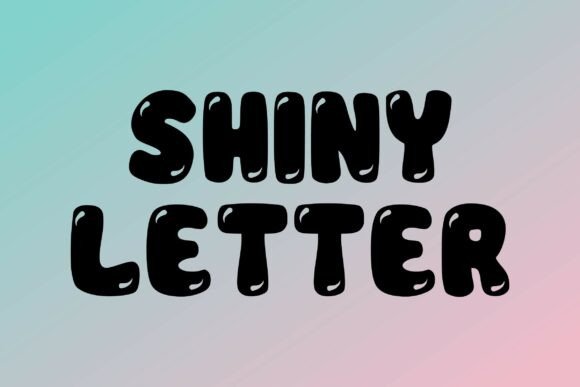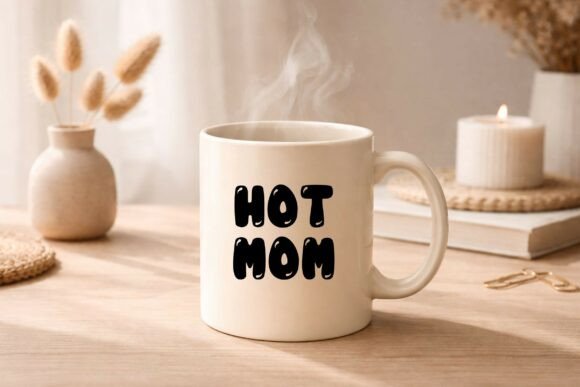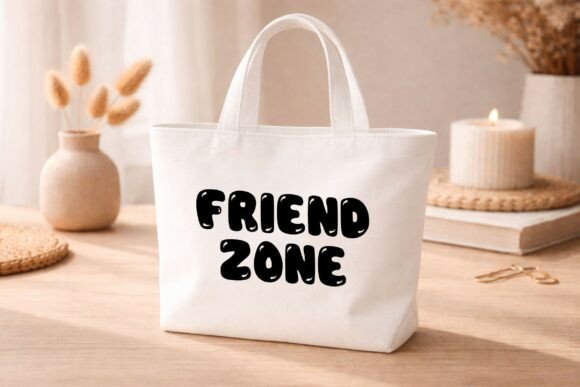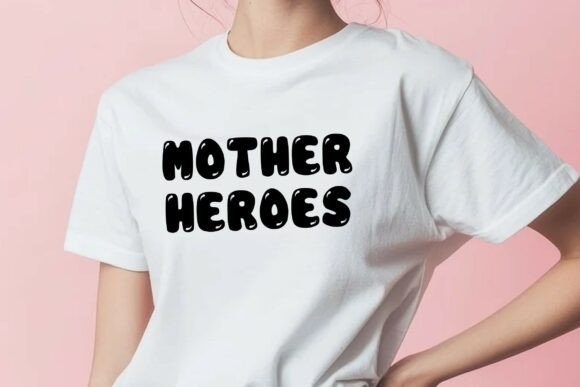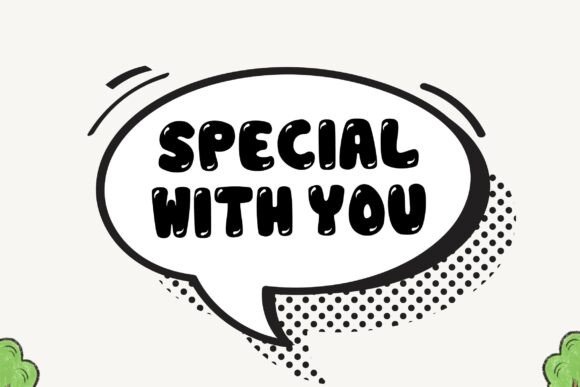
Introducing Clink Bubble Font: The Ultimate Playful and Glossy Font for Creative Designs
Are you tired of using the same old fonts for your design projects? Look no further! Clink Bubble Font is here to add a fun and playful touch to your creations. This glossy bubble font is perfect for designers and crafters who want to add a cheerful and modern twist to their work. With its bold character style and shiny liquid-like highlights, Clink Bubble Font is sure to make your designs stand out.
What Makes Clink Bubble Font So Special?
Clink Bubble Font is a unique and eye-catching font that is sure to capture the attention of your audience. Its rounded bubbly shapes and glossy effect make it ideal for designs that need a friendly, sweet, and modern touch. Whether you’re working on a kids’ design project, branding, posters, stickers, social media graphics, packaging, or playful typography, Clink Bubble Font is the perfect choice.
Perfect for Kids’ Designs and Creative Projects
Clink Bubble Font is especially designed for kids’ projects, making it a great choice for designers and crafters who work with children’s products. The font’s playful and cheerful style is sure to appeal to kids and adults alike, making it perfect for:
- Kids’ party invitations and decorations
- Children’s book titles and illustrations
- Kids’ clothing and accessory designs
- Educational materials and worksheets
Great for Branding and Marketing Materials
Clink Bubble Font is not just limited to kids’ designs. Its modern and playful style makes it a great choice for branding and marketing materials, such as:
- Logos and business cards
- Brochures and flyers
- Product packaging and labels
Key Features of Clink Bubble Font
So, what makes Clink Bubble Font so special? Here are some of its key features:
- Glossy and shiny effect: The font’s glossy effect gives it a 3D-like appearance, making it stand out from other fonts.
- Rounded and bubbly shapes: The font’s rounded shapes give it a friendly and approachable feel.
- Playful and bold character style: The font’s bold character style makes it perfect for headlines and titles.
- Modern and trendy look: The font’s modern design makes it perfect for designs that need a fresh and trendy look.
Tips for Using Clink Bubble Font
Here are some tips for using Clink Bubble Font in your designs:
- Use it for headlines and titles: The font’s bold character style makes it perfect for headlines and titles.
- Pair it with simple backgrounds: The font’s glossy effect can be overwhelming, so pair it with simple backgrounds to make it stand out.
- Experiment with colors: The font’s glossy effect looks great with bright and bold colors, so experiment with different colors to find the perfect combination.
Clink Bubble Font is a fun and playful font that is perfect for designers and crafters who want to add a cheerful and modern twist to their work. With its glossy and shiny effect, rounded and bubbly shapes, and bold character style, it’s ideal for kids’ designs, branding, posters, stickers, social media graphics, packaging, and playful typography. So, why settle for boring fonts when you can add a touch of fun and playfulness to your designs with Clink Bubble Font?